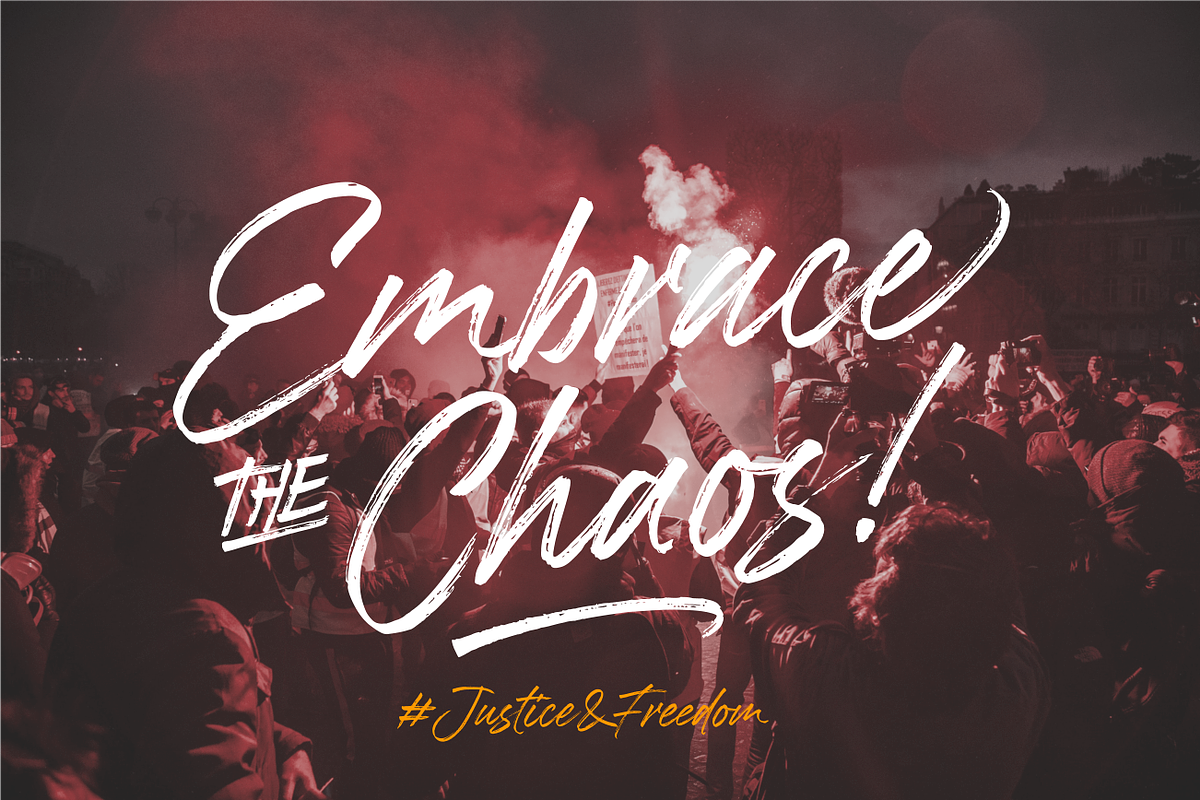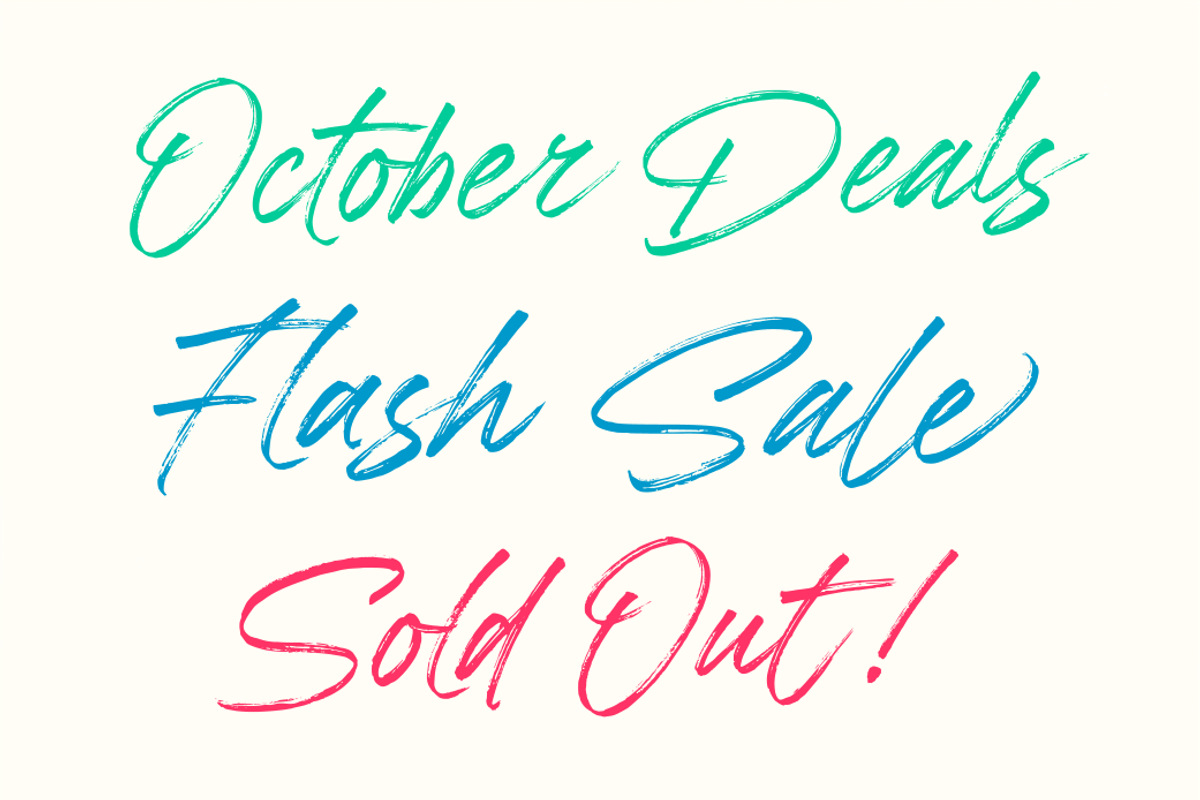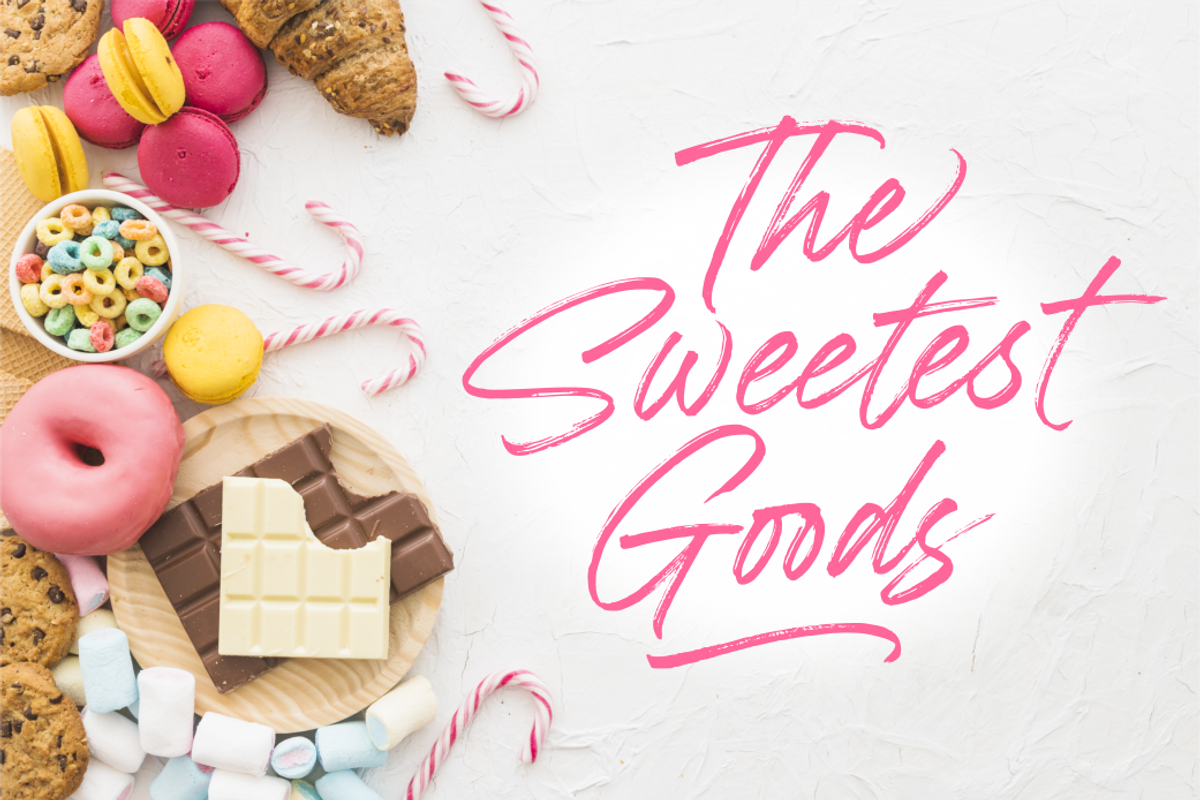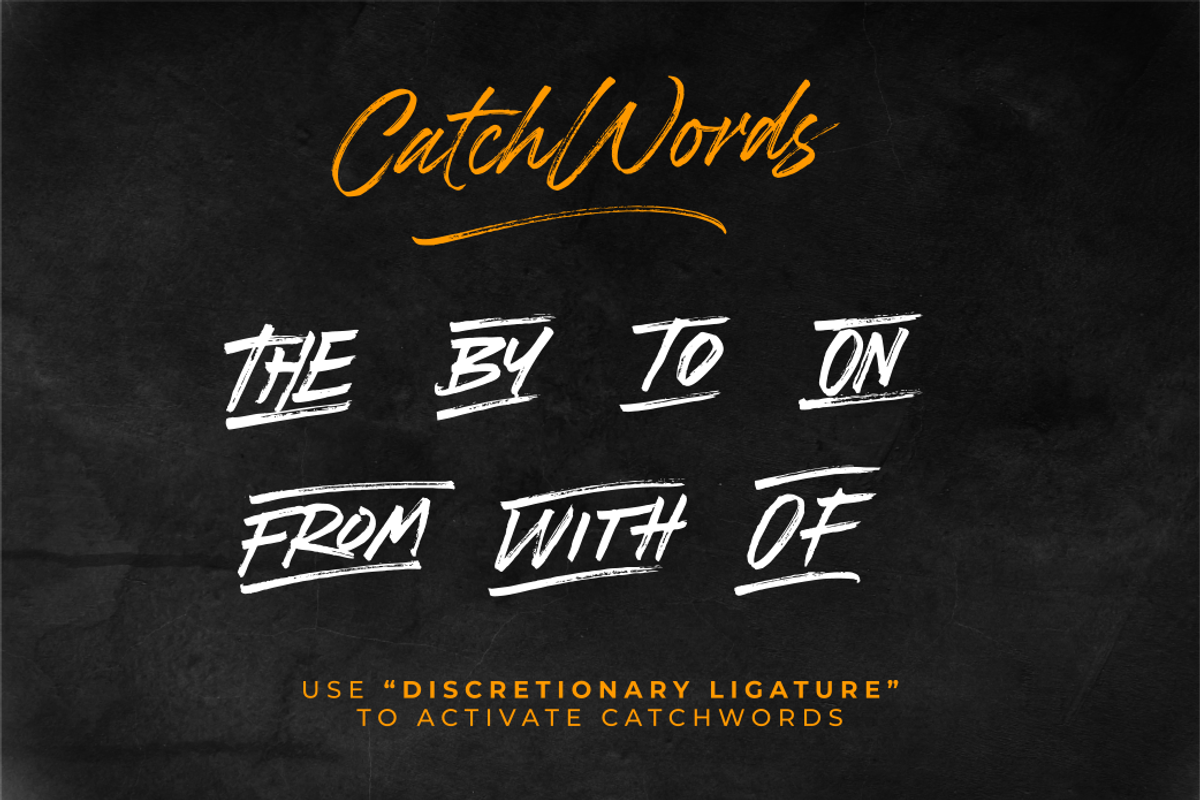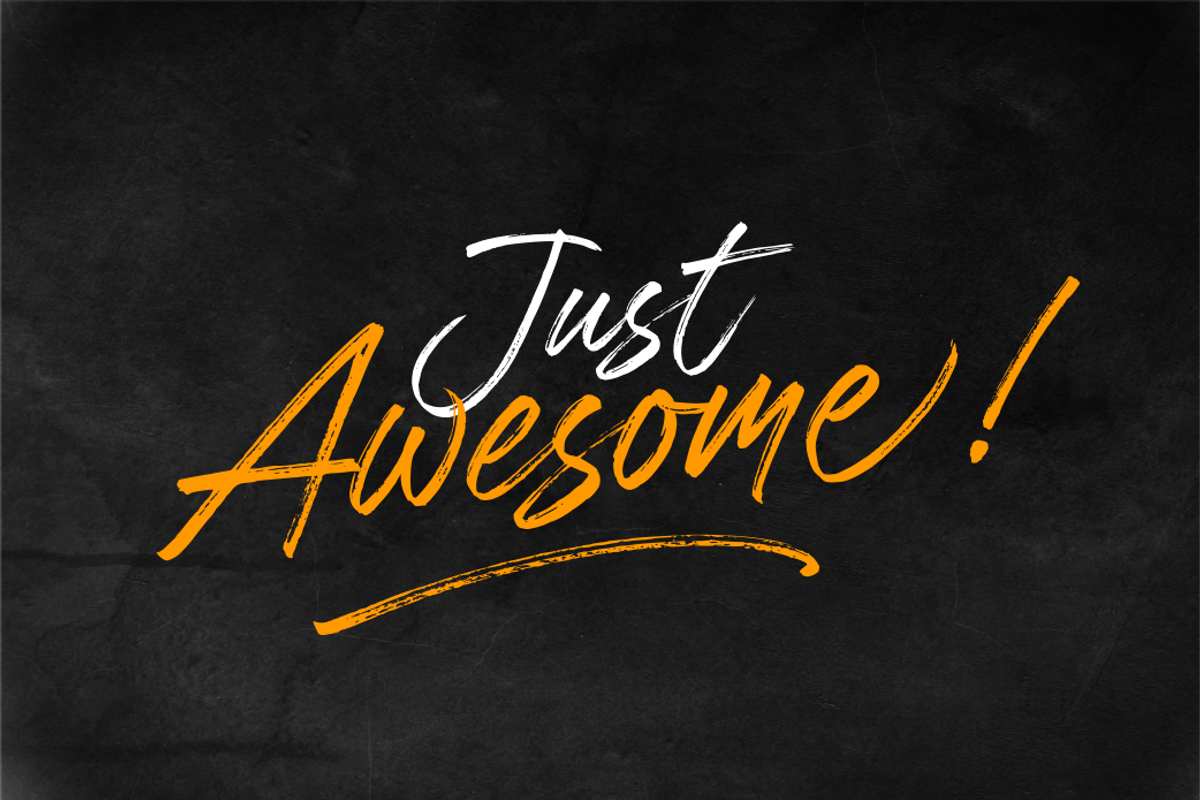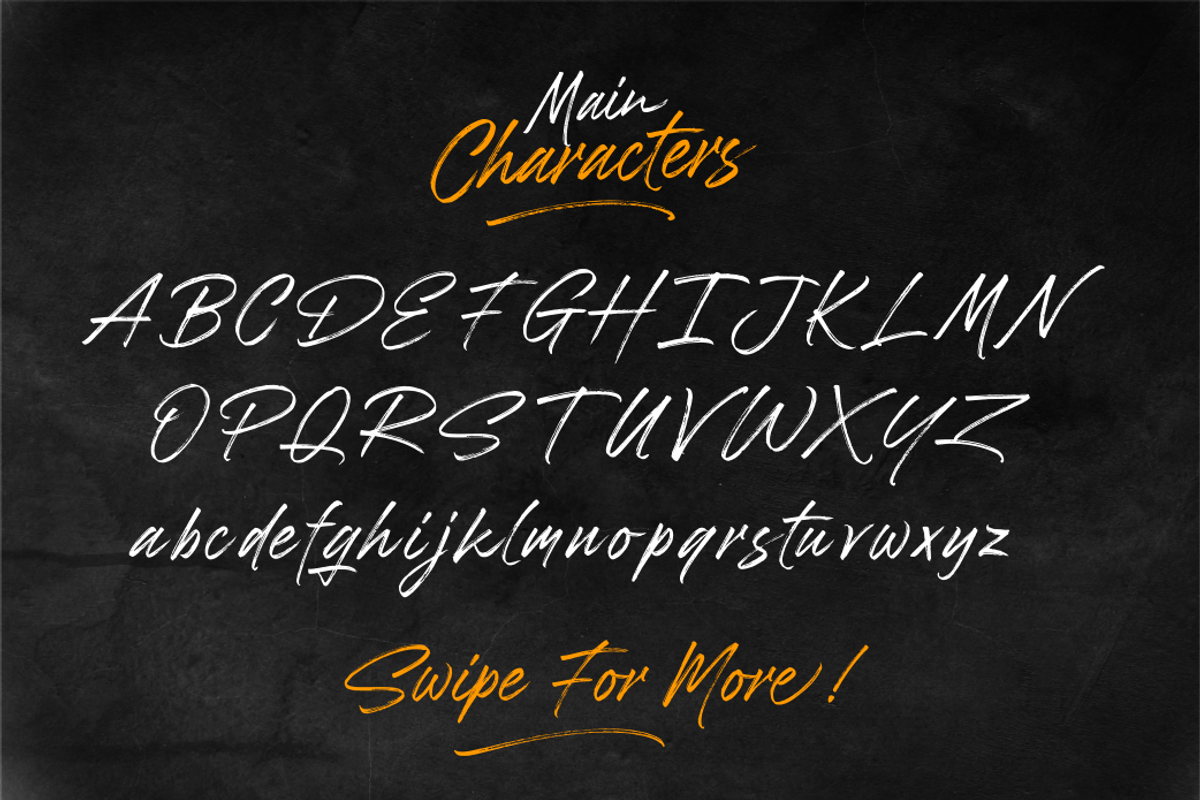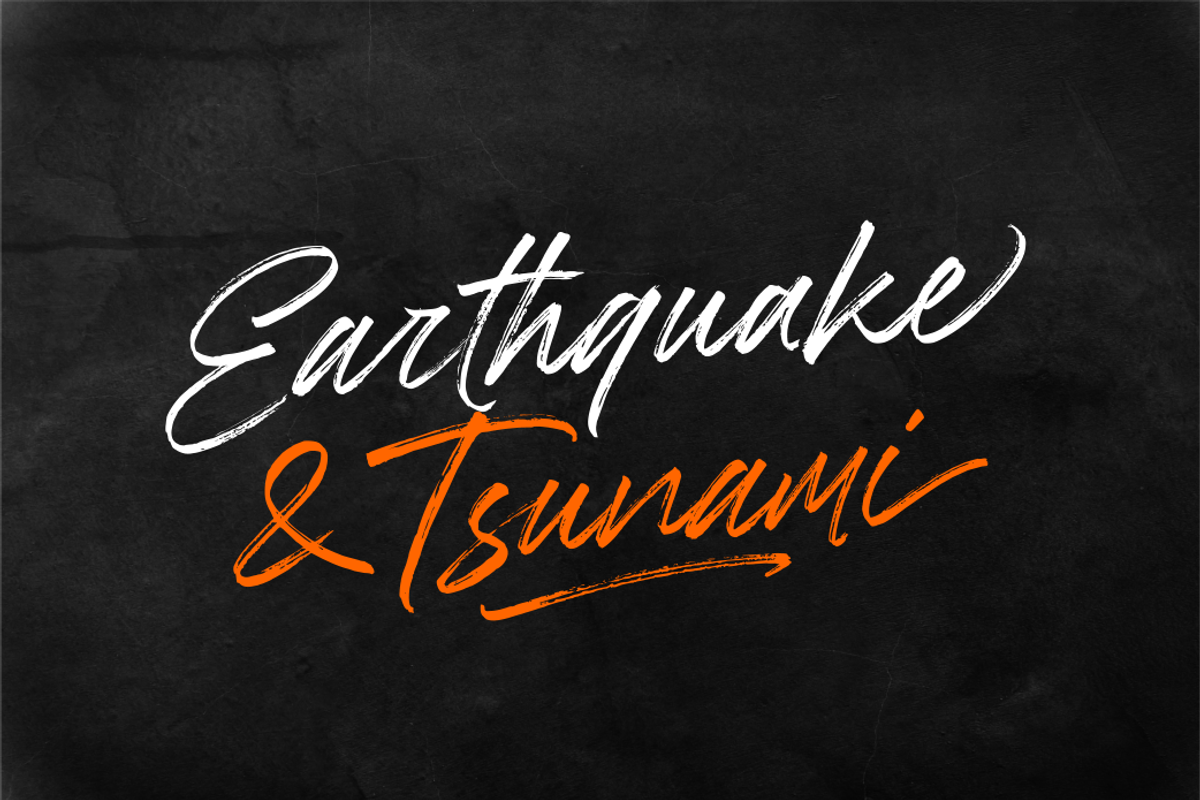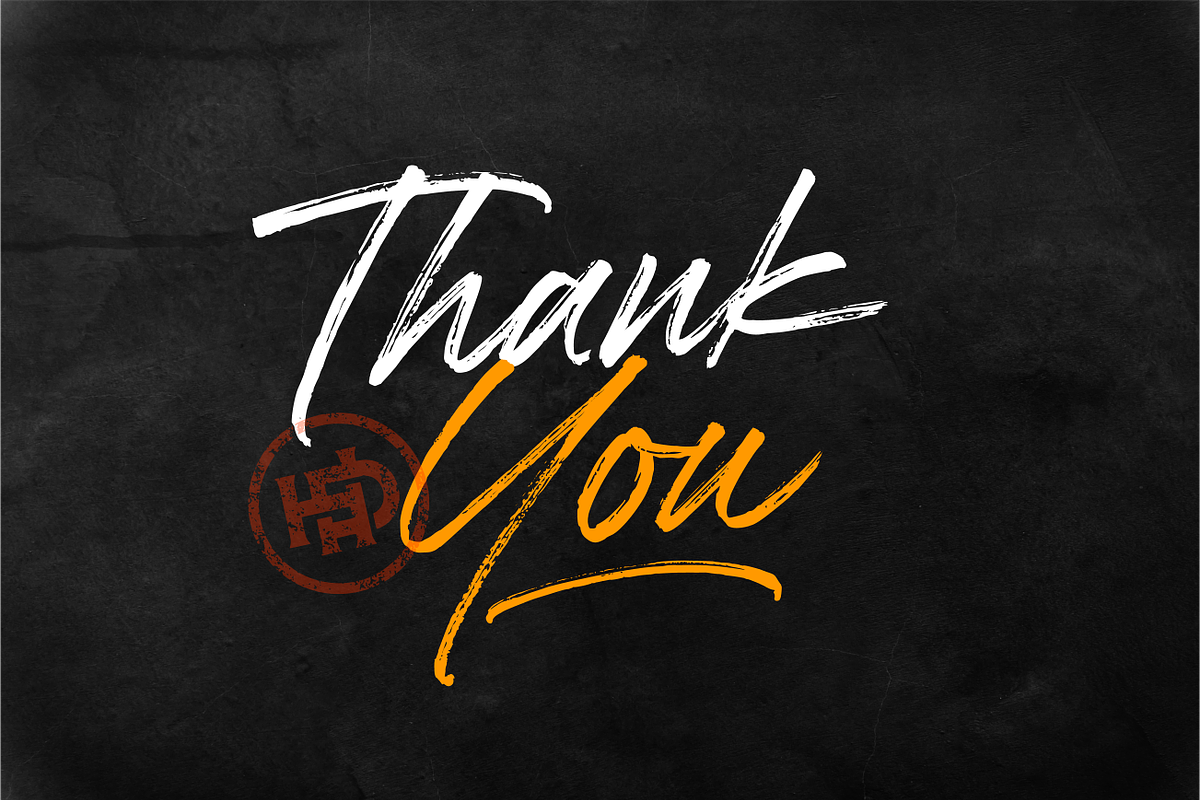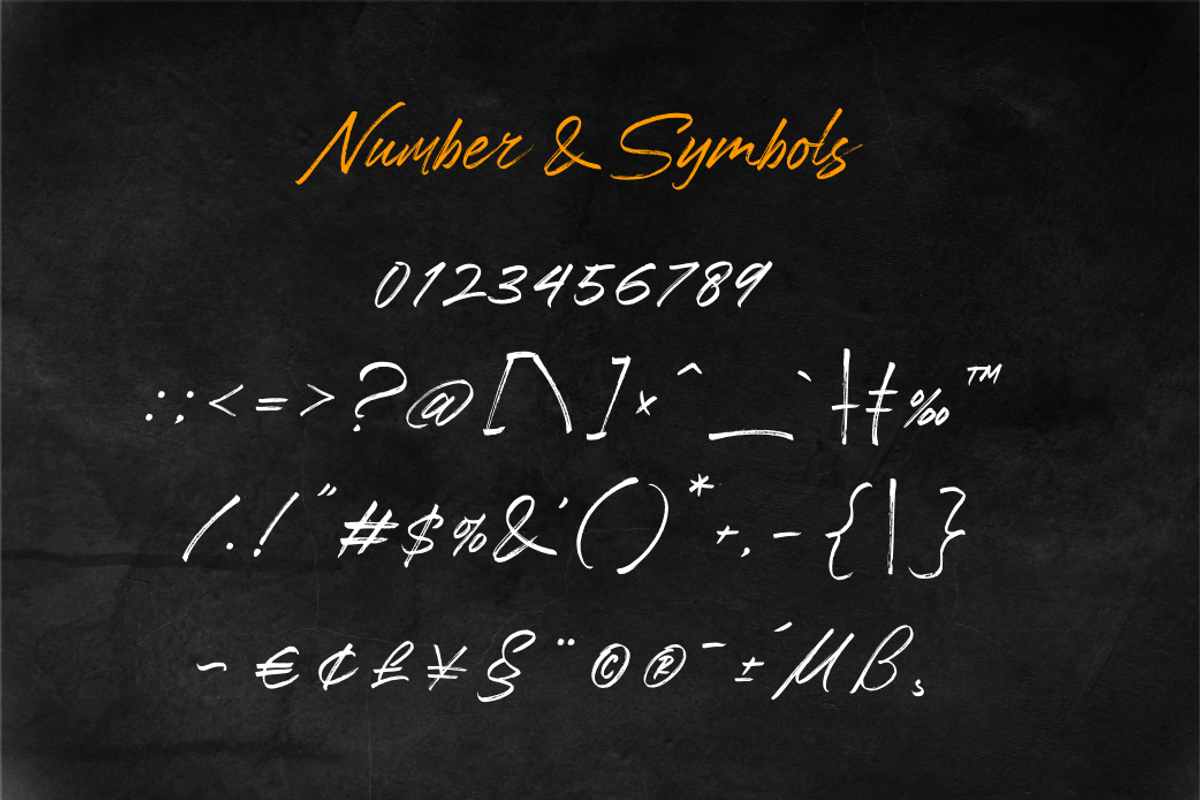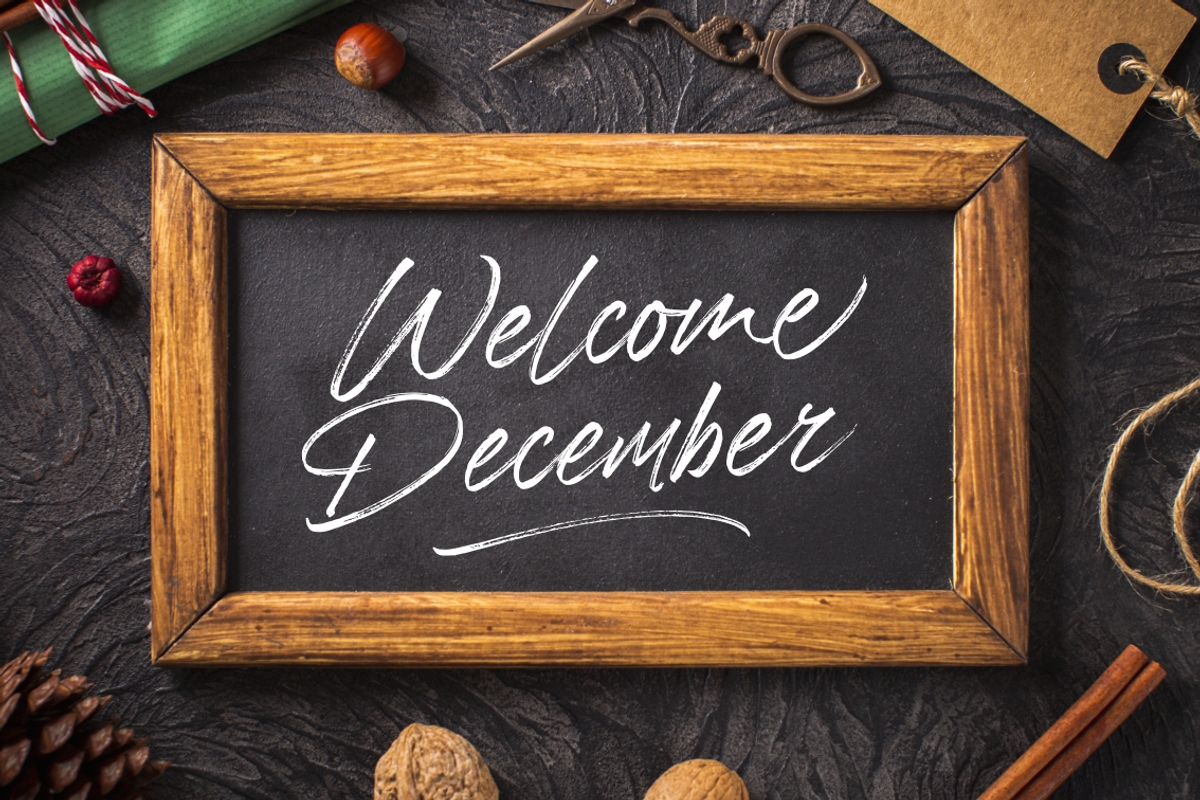
Brushwell - Dry Brush Font
Brushwell is made with a real brushpen by Hendra Pratama. This font deliver the dry brush effect , to create a natural looks of beautiful handwriting brush calligraphy.
Brushwell contains international glyphs such as below:
This font also equipped with a standard OpenType Features such as Ligatures and Stylistic Set Alternates. Please check all the preview images for details!